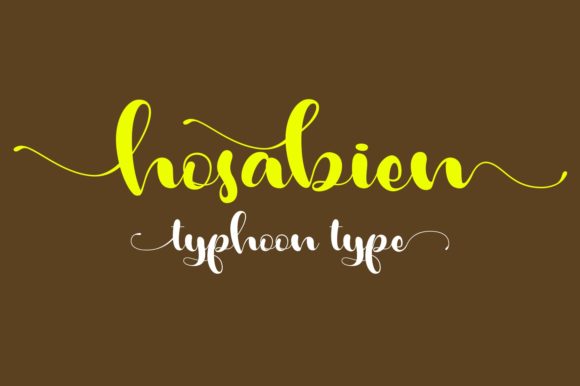
Hosabien Font
About Hosabien Font
The Hosabien is a beautiful handwritten script. Its elegant swashes will give your design a feminine touch.
Perfect for every design that wants to look upscale and chic!